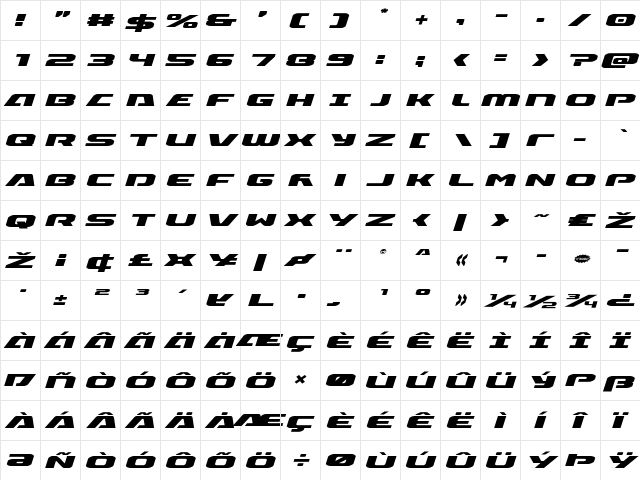
Iapetus Expanded Italic Expanded Italic
Design Context for Iapetus Expanded Italic Typeface
Iapetus Expanded Italic offers clean, dependable letterforms without strong stylistic allegiance, making it a practical choice for designers who need flexibility. The dynamic lean of this cut emphasises speed and emphasis in any layout.
Pro Tip: Use Iapetus Expanded Italic for emphasis, pull quotes, and subheadings where its slanted energy can add rhythm to the layout.